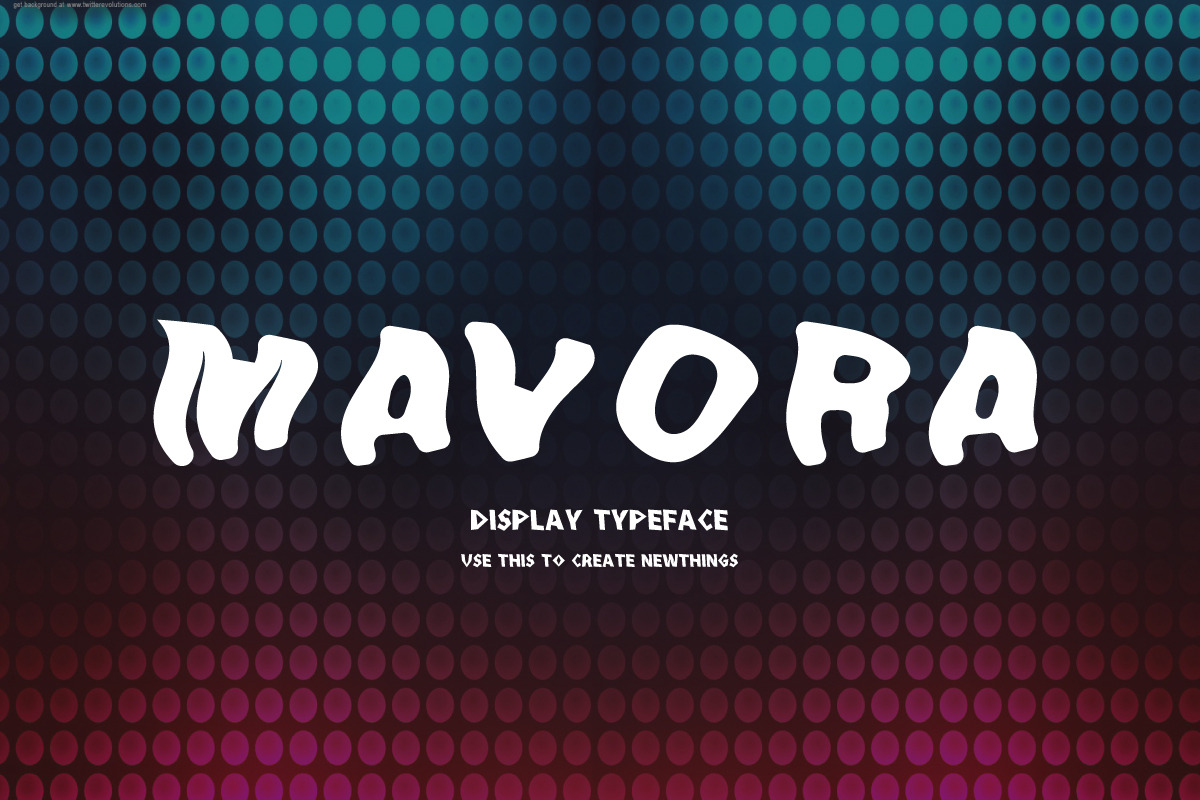
Mavora Font
Mavora Font is a Modern retro, bold, & playful display font. This font is Looking Very Great on headlines, Packaging, Minimal Design, Poster, magazines, logos, street vibes, Sportwear,Textile Clothing branding and so much more